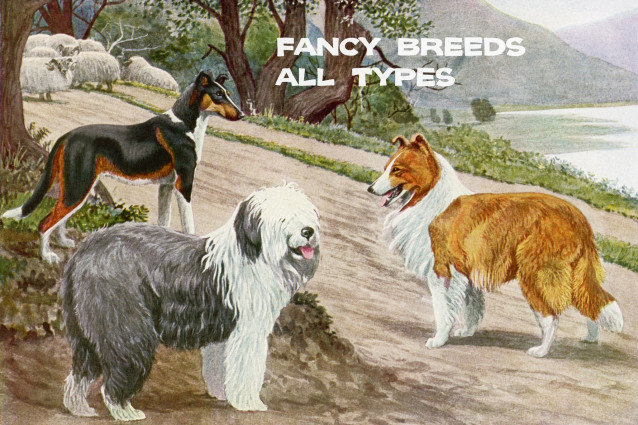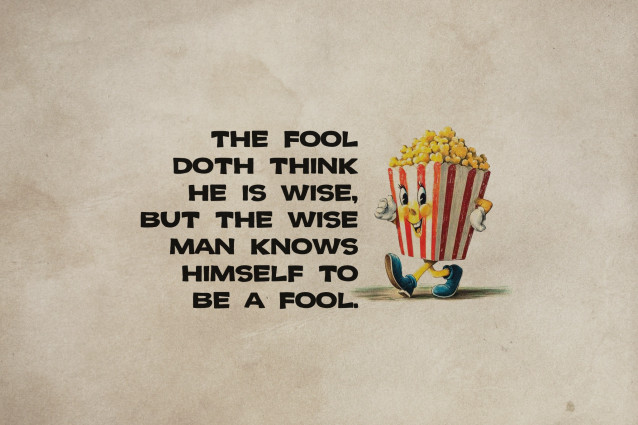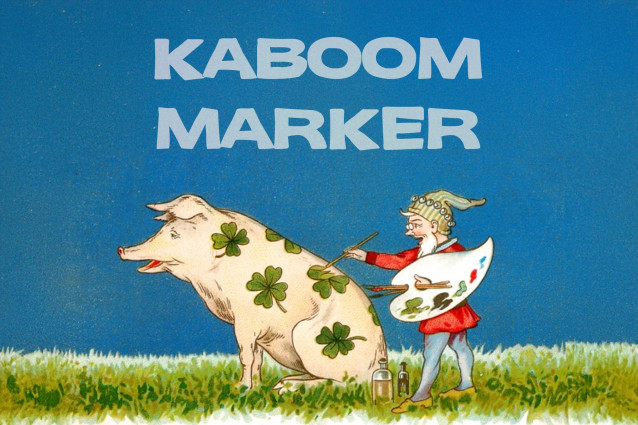
Kaboom Marker Font
Kaboom Marker Font a new illustration font that is perfect for your next illustration project. It’s an all-caps heavy chisel bubble font available in both the original outline form in which it was drawn, and a standard filled version.
Kaboom Marker comes loaded with accented and special characters, and the lowercase is made up of a number of alternates for the uppercase letter set.